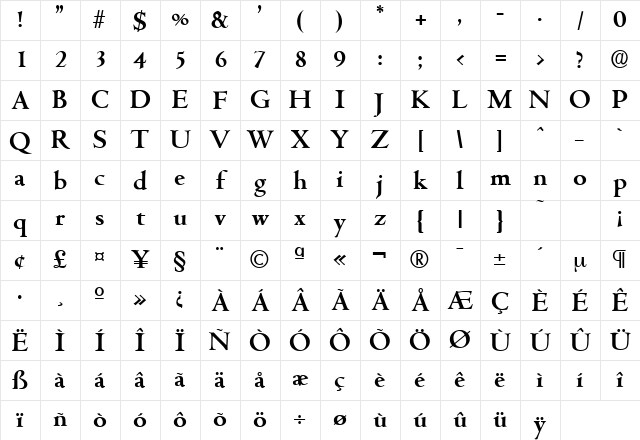
Cambridge-Serial Bold Free Font
Design Context for Cambridge-Serial
Cambridge-Serial is a composed and adaptable typeface that performs quietly and consistently across a wide range of design contexts. Its bold stroke weight gives it real presence on the page.